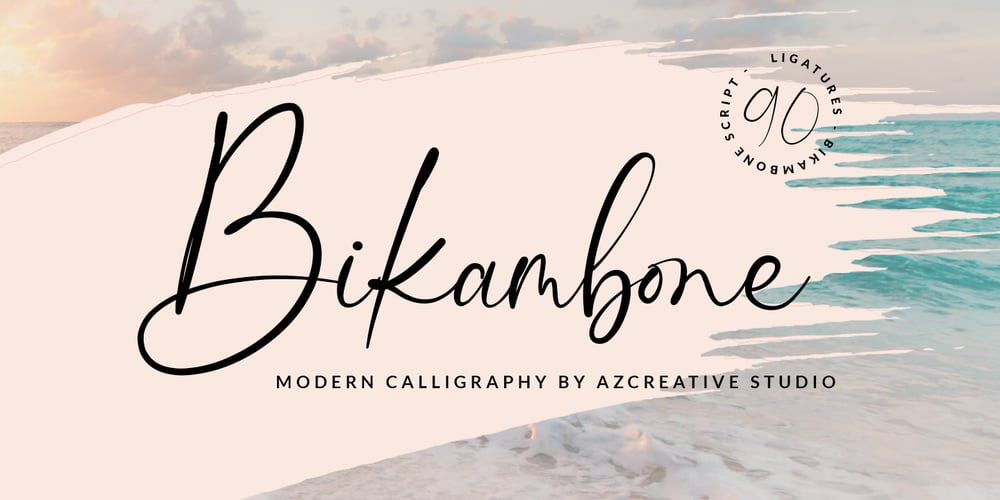
Bikambone
Bikambone font
Bikambone Font Family was designed by Abdul Azis and published by AZCRTV Studio. Bikambone contains 1 styles and family package options. Bikambone is a modern and casual handwritten style font that is perfect for you to use in all kinds of designs such as invitation designs, posters, logos, flyers, and others. It includes 90 ligatures and multi-lingual support.